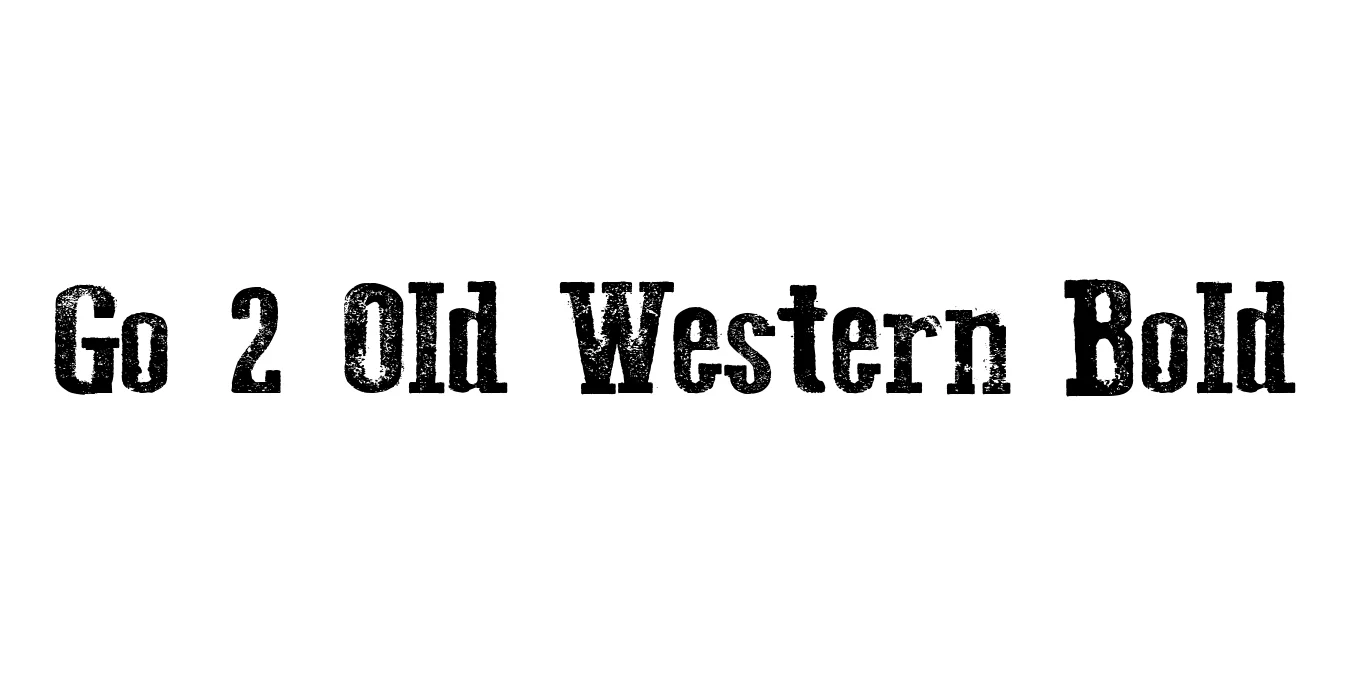
Go 2 Old Western Bold
Designed by Galdino Otten
| Category | Display / Slab Serif |
| Designer | Galdino Otten |
Go 2 Old Western Bold is a striking display typeface that meticulously captures the rugged aesthetic of the 19th-century American frontier. Its design is deeply rooted in the tradition of vintage woodblock printing, featuring heavy slab serifs and a robust, masculine structure. This font is specifically engineered to command attention, mirroring the high-contrast letterforms found on historical "Wanted" posters, saloon signage, and gold rush-era newspaper headlines.
Developed by the renowned designer Galdino Otten, this typeface is a centerpiece for projects requiring a nostalgic or industrial-vintage feel. The Bold weight provides an added layer of gravitas, ensuring that the text remains legible even when applied to weathered textures or busy backgrounds. It serves as a bridge between historical typography and modern digital design, offering a timeless grit that is essential for any Americana-themed creative work.
Go 2 Old Western Bold Best Uses
Perfect for creating strong, heritage-inspired identities for breweries or clothing brands.
Highly effective for event flyers, theatrical posters, and 'Wanted' style graphics.
Ideal for artisan labels, craft food products, and rustic beverage packaging.
Excellent for wood-burned signs, cafe menus, and historical site displays.